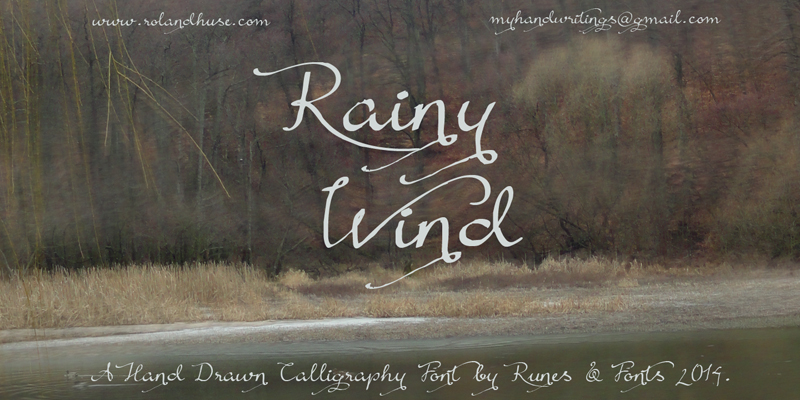
RAINY WIND is my first calligrphic font experiment, hand drawn concept. For further information feel free to contact me via myhandwritings@gmail.com also about the following: - This family does not contain language extensions, but I am willing to create any extensions on request - Discovering kerning problems while using Or any other question. This font is free for PERSONAL use only. For any commercial use (anything you make money from), you must send a paypal donation. You MAY NOT sell my fonts or claim them as your own. You MAY NOT edit or rename my fonts. You MAY redistribute my fonts if: 1. You credit me (Roland Huse). 2. Keep the READ ME file intact within the zip folder. 3. Provide a link back to my website (www.rolandhuse.com). Thank you & I hope you like this font, \m/ Roland http://www.rolandhuse.com https://www.facebook.com/pages/Runes-And-Fonts/123221817784772 |